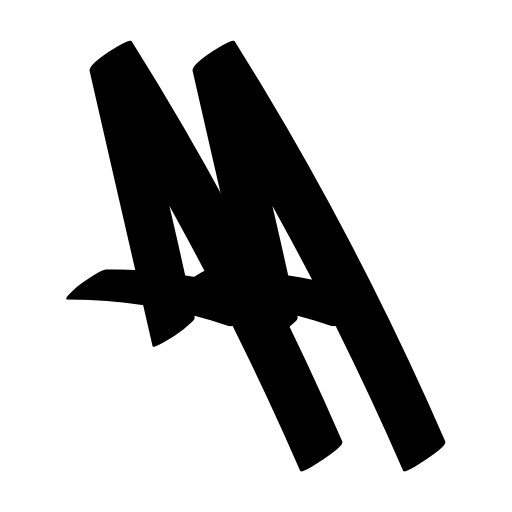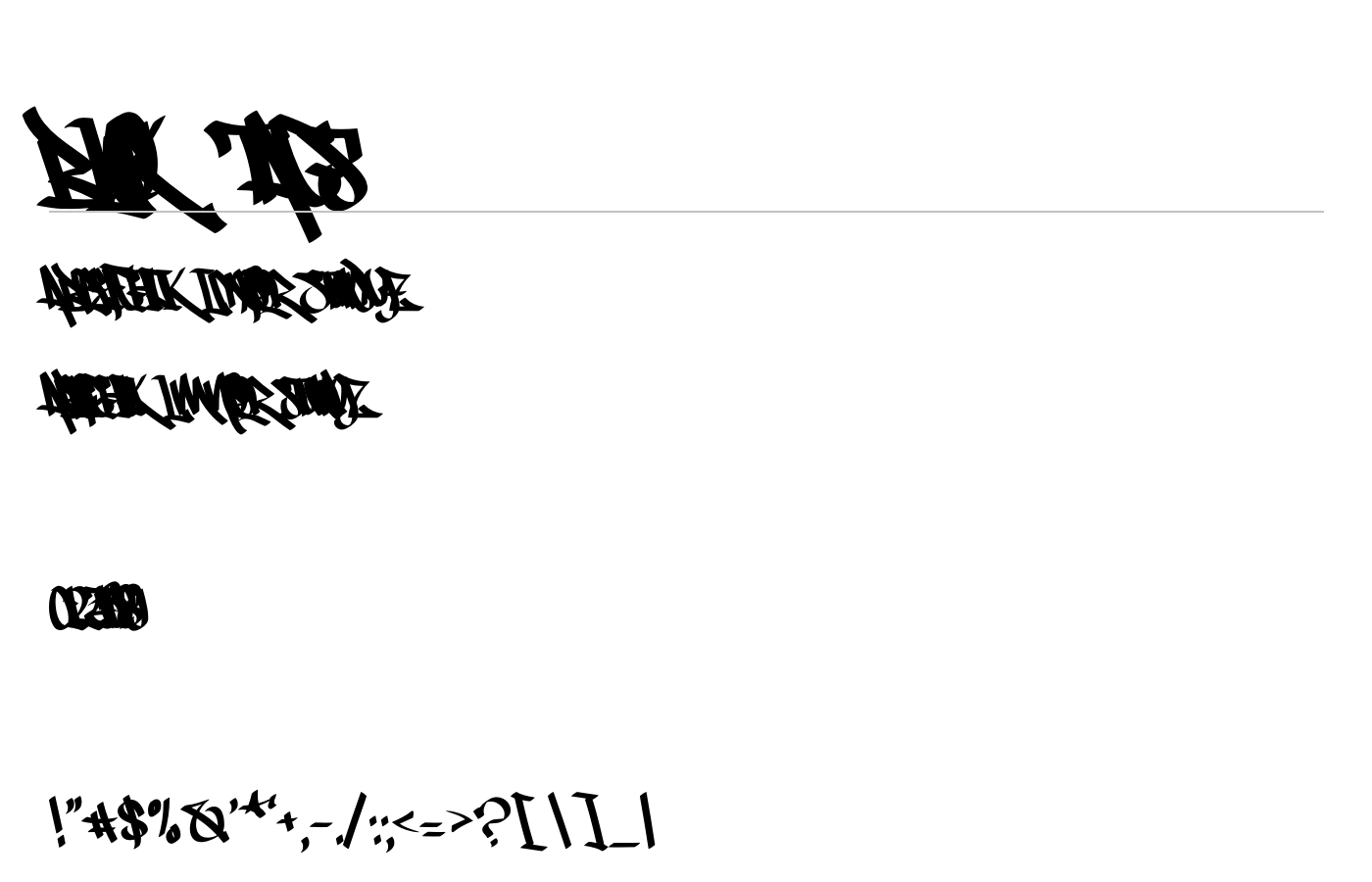
Block Tags is a bold, condensed, and highly stylized graffiti-inspired font featuring sharp, angular strokes and dense letterforms. Its chaotic and expressive style makes it perfect for urban-themed designs, streetwear branding, and edgy posters where a strong visual impact is desired. This font works best in headline or logo use, adding a rebellious, energetic vibe to any creative project.
Block Tags Font
About Block Tags Font
| Font family | Block Tags Font |
| Designer | Ondi Indriana |